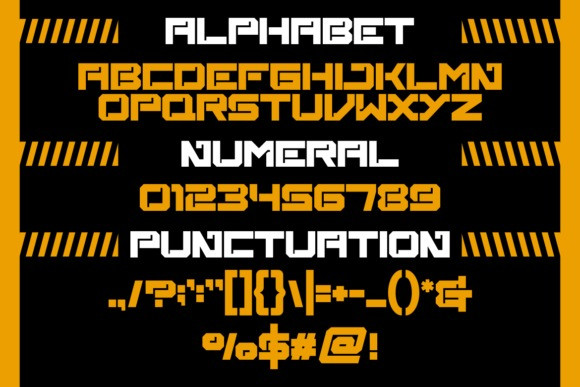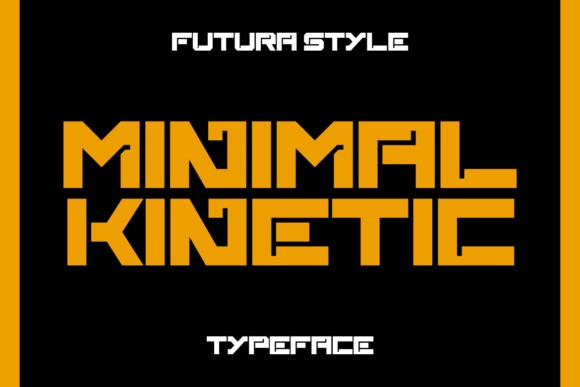
Broxy Futuristic Font
Broxy Futuristic Font – Modern Font is a bold and authentic display font. The font is suitable for any branding project like logo, template design, esport, and many more. outstanding in a wide range of contexts.